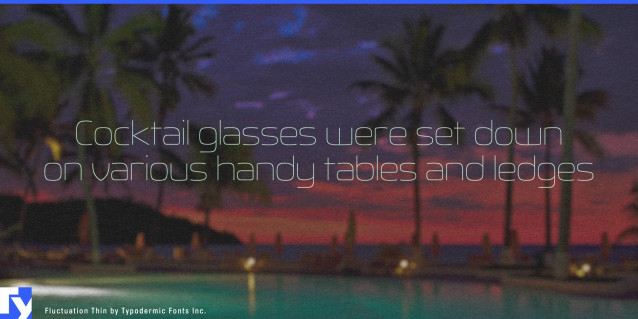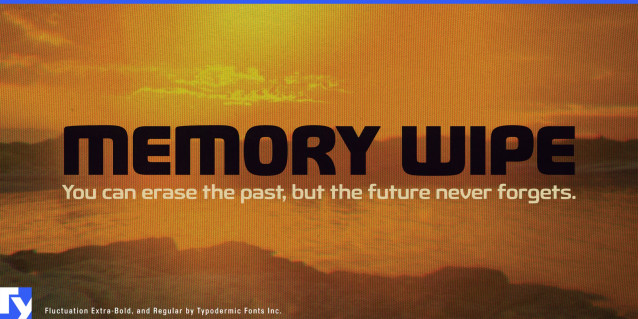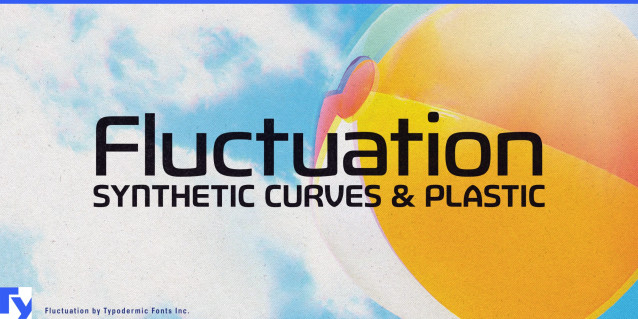
Fluctuation Font Family
Fluctuation draws its strength from the language of industrial design. Its forms echo the molded arcs, chamfers, and precision curves found in consumer electronics, furniture, and appliances—shapes built to be both beautiful and dependable. The lowercase n carries a subtle upward arc that softens the geometry, while the uppercase A’s cathedral arch opens space in the counter, keeping heavy weights crisp and readable. That same shape reappears in the V, creating a rhythm of engineered symmetry.
Compact proportions conserve space without feeling cramped, making Fluctuation a natural fit for tight UI layouts, tech branding, or signage where every millimeter matters. The lighter weights have an architectural clarity; the bolds project molded solidity, as if each letter could be picked up and held. Across the range—from Extra-Light to Extra-Bold, with italics for every weight—the family maintains its clean precision and balance.
With broad Latin language support and a structure that remains stable at any size, Fluctuation adapts from packaging to dashboards to magazine covers without losing its modern edge. It’s a typeface that doesn’t just reference technology—it shares its DNA.